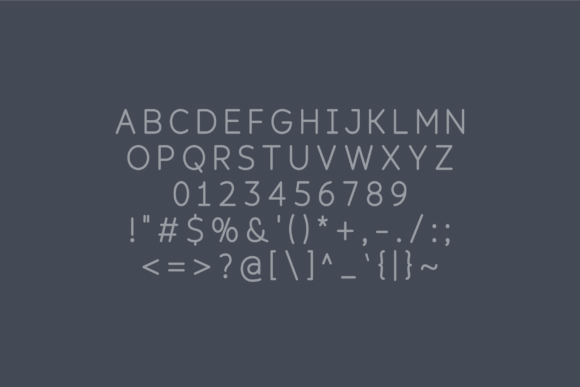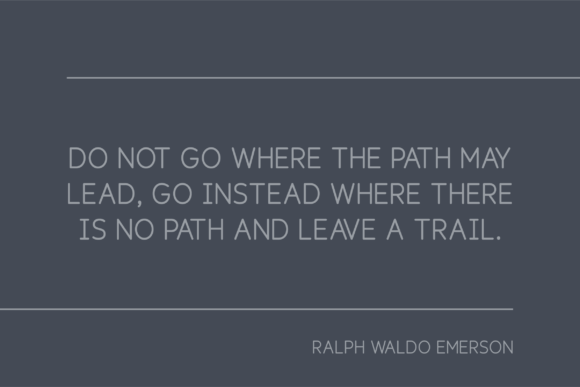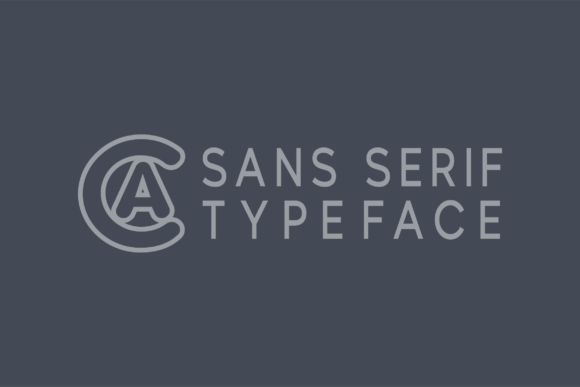
Unveiling Galadros: The Ultimate Sans Serif Font for Modern Design
In the world of typography, a font can make or break a design project. With the introduction of Galadros, a chic and contemporary sans serif font, designers and crafters can now elevate their work to new heights. This comprehensive linguistic tool is carefully crafted to integrate uppercase letters, numbers from 0-9, and a diverse range of punctuation and symbols, making it the perfect addition to any design endeavor.
The Elegance of Galadros
Galadros is more than just a font – it’s a creative asset that exudes elegance and sophistication. Its ultra-versatile typography makes it an ideal choice for a wide range of applications, from crafting the perfect brand logo to gracing wedding invitations, showcasing mesmerizing quotes, enhancing advertisements, or simply adding a stylish touch to magazine layouts and print materials.
Key Features of Galadros
- Comprehensive Character Set: Galadros includes uppercase letters, numbers from 0-9, and a diverse range of punctuation and symbols, making it a truly comprehensive linguistic tool.
- Contemporary Sans Serif Design: The font boasts a chic and modern sans serif design, perfect for creating clean and sophisticated visuals.
- Ultra-Versatile: Galadros can be used in a wide range of applications, from branding and advertising to wedding invitations and magazine layouts.
- Elegant and Sophisticated: The font exudes elegance and sophistication, making it perfect for designers and crafters looking to create high-end visuals.
Applications of Galadros
Galadros is a versatile font that can be used in various design projects, including:
- Branding and Logo Design: Create a lasting impression with a custom logo that showcases your brand’s personality and style.
- Wedding Invitations: Add a touch of elegance and sophistication to your wedding invitations and save-the-date cards.
- Advertising: Use Galadros to create eye-catching advertisements that grab attention and leave a lasting impression.
- Magazine Layouts and Print Materials: Elevate your magazine layouts and print materials with a stylish and modern font that’s sure to impress.
- Quote Design: Showcase mesmerizing quotes and sayings with a font that’s designed to make a statement.
Why Choose Galadros?
With so many fonts available, why choose Galadros? Here are just a few reasons why designers and crafters are falling in love with this contemporary sans serif font:
- Unique and Modern Design: Galadros boasts a unique and modern design that’s sure to make your design projects stand out.
- Ease of Use: The font is easy to use and can be integrated seamlessly into your design workflow.
- High-Quality Typography: Galadros is designed to deliver high-quality typography that’s perfect for print and digital applications.
- Constantly Evolving: The Galadros font is constantly evolving, with new features and updates being added regularly.
In conclusion, Galadros is a game-changing font that’s perfect for designers and crafters looking to elevate their design projects to new heights. With its comprehensive character set, contemporary sans serif design, and ultra-versatility, Galadros is an essential tool for anyone looking to create high-end visuals. Whether you’re designing a brand logo, wedding invitation, or magazine layout, Galadros is the perfect choice. Experience the charm and flexibility of Galadros today and discover a font that’s more than just characters – it’s a creative asset that propels your design projects to new heights.